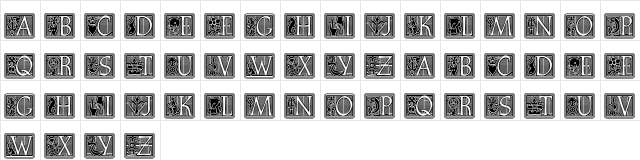
Athenaeum Initial CG Negative Regular
Design Context for Athenaeum Initial CG Negative Typeface
Athenaeum Initial CG Negative is a composed and adaptable typeface that performs quietly and consistently across a wide range of design contexts.